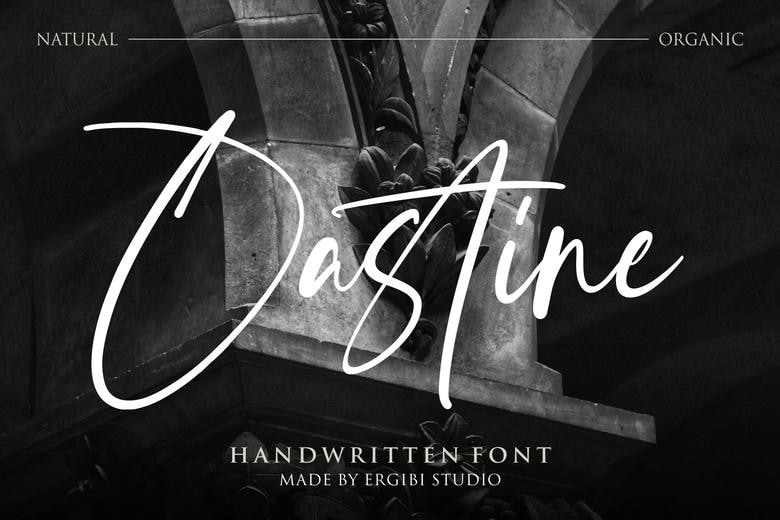
Oastine Font
Oastine handwriting for that natural warmth that can be added to your works. Every letter looks quite natural, connected, non abrupt, each line looks delicate and closely resembles with hand writing. Most appropriate where projects such as invitations, journals, branding, and packaging comes in handy as it gives the projects an indigenous feeling.
Introducing ‘Oastine’, an amalgamation of the natural essence of hand lettering with the functionality of the form dominated digital font adding uniqueness and grace to any design project.
Oastine Handwritten Script Font